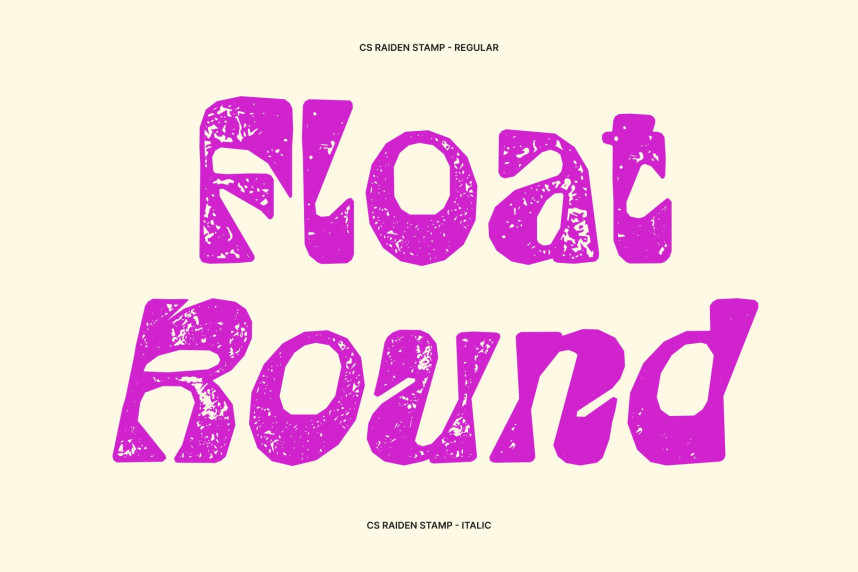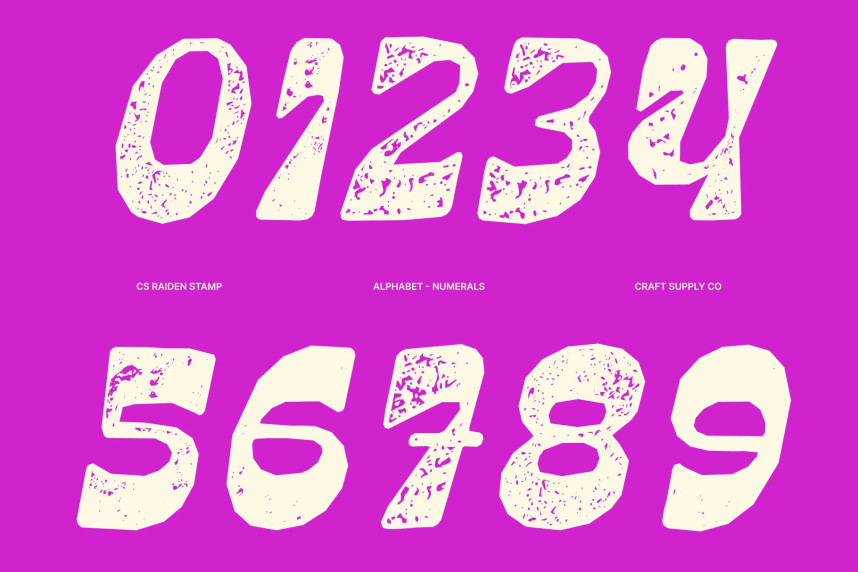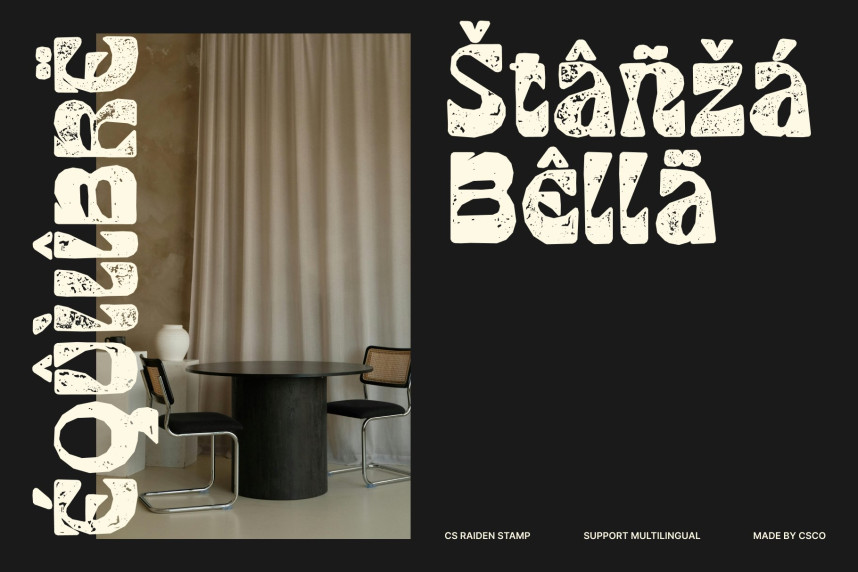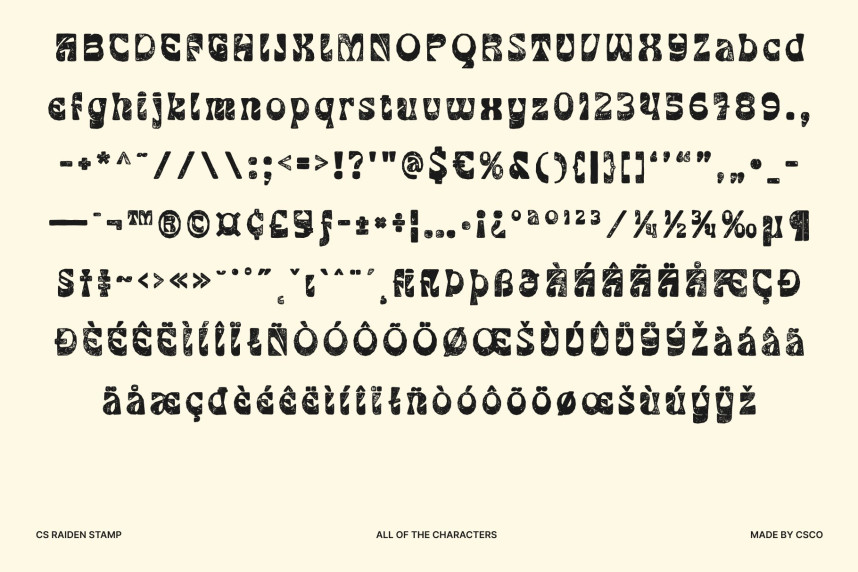
CS Raiden Stamp Font
CS Raiden Stamp Font – Reverse Contrast Display Font: Where Retro Style Meets Bold Modular Expression
Bold Modular Shapes with Playful Retro Energy
This is a reverse contrast display font that combines bold sans serif construction with playful retro-inspired styling. Its striking modular aesthetics and unconventional stroke contrast create a visually dynamic appearance filled with personality, rhythm, and vintage charm. Every character feels expressive and attention-grabbing, making the font perfect for bold creative compositions.